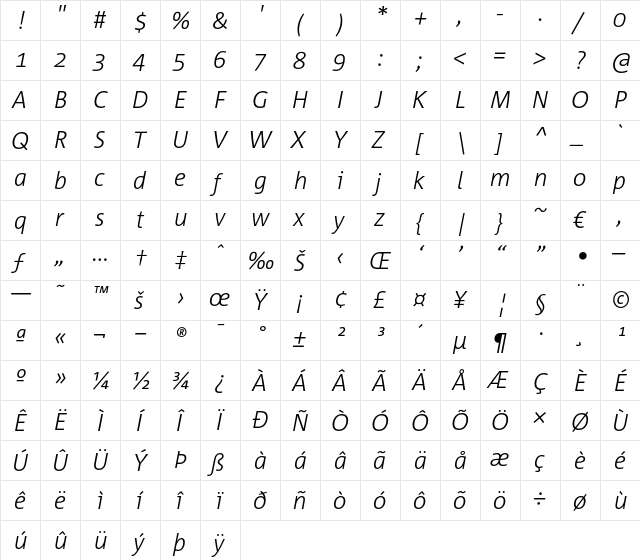
Corpid Light Italic
Design Context for Corpid Typeface
Corpid takes a measured approach to typography — its balanced proportions and neutral character make it a reliable workhorse for both digital and print work. Its italic angle brings a sense of urgency and motion to the letterforms. The delicate stroke weight brings airiness and refinement to layouts.
Pro Tip: Use Corpid for emphasis, pull quotes, and subheadings where its slanted energy can add rhythm to the layout.